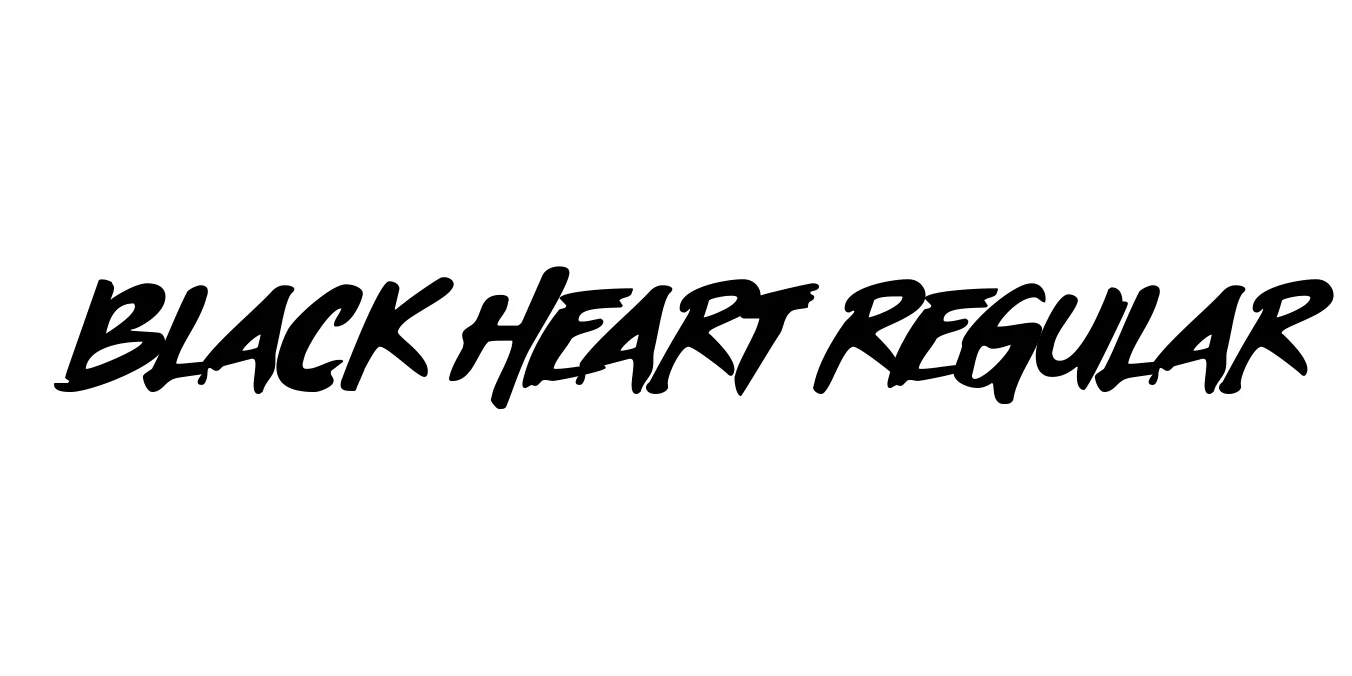
Black Heart Regular
Designed by Zulhelman
Black Heart Regular is a striking brush script font designed by Zulhelman. It features bold, expressive strokes that convey a sense of raw energy and edgy sophistication. The typeface is characterized by its fluid, hand-drawn aesthetic, making it an ideal choice for projects that require a touch of rebellion or dark elegance.
Originally released to cater to the growing demand for modern gothic and urban street styles, Black Heart Regular has become a favorite among graphic designers for its versatility. Whether used in high-contrast layouts or minimalist designs, its unique texture and organic flow provide a distinct visual impact that stands out in both digital and print media.
Black Heart Regular Best Uses
Perfect for t-shirt designs and streetwear branding.
Great for eye-catching Instagram quotes and edgy thumbnails.
Ideal for rock, metal, or alternative album artwork.
Suitable for bold, signature-style brand identities.